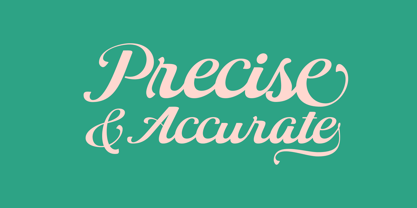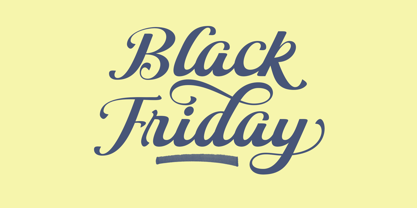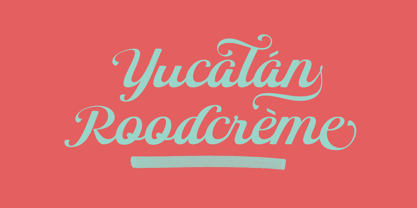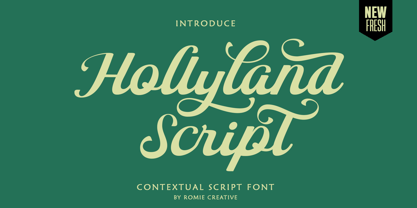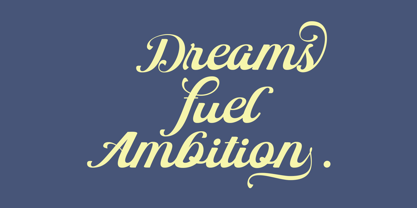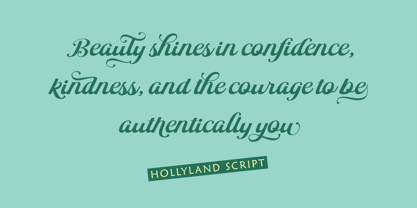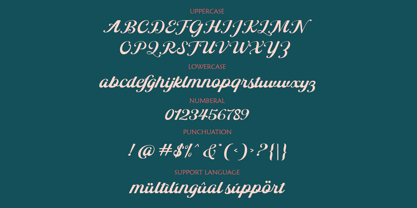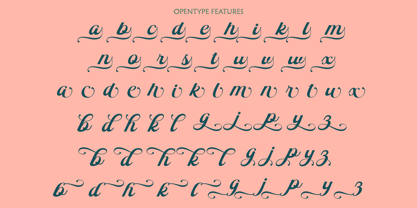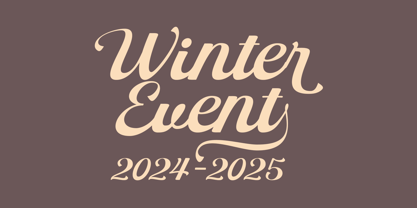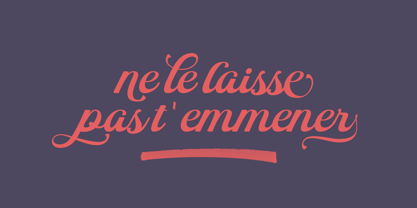
Hollyland Script
by Romie Creative
The Hollyland Script Font Family was designed by Romi Rahmadi and published by Romie Creative. Hollyland Script contains 1 styles.
Hollyland Script is a modern brush script font. The letters have soft, slightly bouncy terminals. Hollyland Script has two sets of uppercase letters, one simpler and the other more striking.
It also has three different types of starting and ending swashes for lowercase letters and several options for ascenders and descenders.
So if you're looking for a smooth, friendly and modern script with lots of options and versatility, check out Hollyland Script.
About Romie Creative
Romie Creative/ Romie Creative was founded in 2019 and is run by Romi Rahmadi. I love to draw letters, fell in love with writing and write letters for a living. I love exploring and seeing how typography reflects a brand's personality. I want to continue to develop my creativity and use my passion to bring greater benefits to myself and the designer community. Founded Romie Creative to help designers choose their projects. I concentrate on handcrafted quality fonts, mostly script styles and more. Now pursuing my new passion completely from my home studio. Turned my freelance business into a type designer.